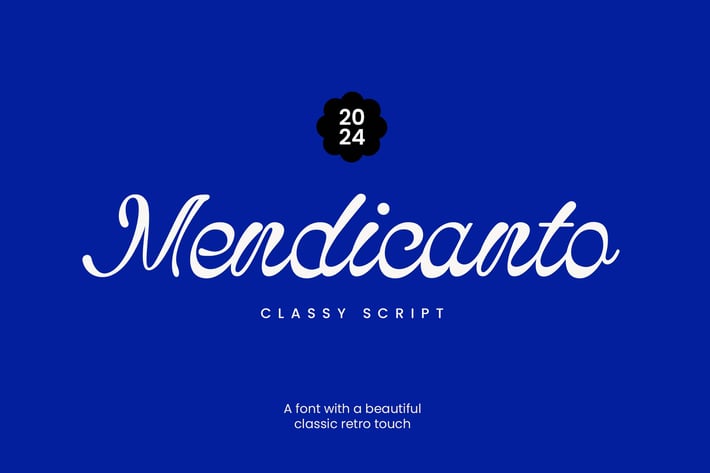
Medicanto Classy Sript Font
Introducing our new product the name is Medicanto Classy Sript Font. Medicanto Classy Sript Font that feels beautiful classy, elegant, and modern. This font is ideally suited for a wide variety of projects, such as signature, stationery, logo, wedding, typography quotes, magazine or book covers, website headers, clothing, branding, packaging design, and more. Also, fashion-related branding or editorial design displays both masculine and feminine qualities.